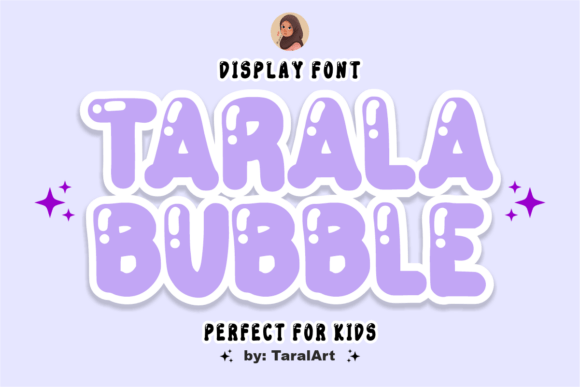
Tarala Bubble: A Squishy, Joyful Display Font
In the crowded landscape of digital design, capturing attention often requires more than just clear communication; it demands an emotional connection. Typography plays a pivotal role in establishing this tone before a single word is read. Enter Tarala Bubble, a typeface that immediately distinguishes itself through its ultra-chunky and utterly squishy aesthetic. Unlike traditional serif or sans-serif fonts that prioritize neutrality, Tarala Bubble brings immediate joy to any text. Its maximized rounded forms and incredibly soft, bubble-like appearance embody pure fun and cuteness, making it a powerful tool for designers who need to inject warmth and approachability into their projects.
The Psychology of Soft, Rounded Typography
When selecting a font, the shape of the letters influences how the audience perceives the message. Sharp angles can convey authority, urgency, or modernity, but they can also feel harsh or intimidating. In contrast, the gentle curves found in Tarala Bubble trigger a different psychological response. The human eye is naturally drawn to organic, rounded shapes because they mimic elements found in nature and the physical world, such as bubbles, clouds, and soft toys. This "liquid-like" aesthetic creates a sense of safety and playfulness.
For professionals targeting younger audiences or those looking to soften a brand's image, this visual language is essential. The gentle glow and light purple color often seen in previews enhance this playful vibe, though the core strength of the font lies in its structure. By removing sharp corners and maximizing the volume of each character, Tarala Bubble ensures that the text feels friendly and inviting. This is not merely about decoration; it is about reducing cognitive friction. When a headline looks like it is smiling back at the reader, engagement rates often improve because the barrier to entry feels lower.
Ideal Applications for Children and Education
The most obvious and effective use case for Tarala Bubble is in children's media. Educators, parents, and content creators know that readability for young learners goes beyond simple letter recognition; it involves maintaining interest. Standard fonts can sometimes feel dry or academic, causing disengagement. Tarala Bubble solves this by transforming educational materials into something visually exciting. Whether used for flashcards, storybook titles, or classroom posters, the font's bold, simple shapes ensure excellent legibility while keeping the mood lighthearted.
Beyond education, the toy industry relies heavily on packaging that screams "fun." A product box featuring a standard font might blend in with competitors, but one utilizing the buoyant energy of Tarala Bubble stands out on the shelf. The chunky nature of the letters mimics the tactile experience of the toys themselves—plush, soft, and safe. This alignment between the visual presentation and the physical product strengthens the consumer's desire to interact with the item. For small business owners selling crafts or handmade goods for kids, adopting this typeface can instantly signal that the brand understands its demographic.
Enhancing Digital Presence with Playful Branding
While explicitly advertised as perfect for kids, the utility of Tarala Bubble extends well into adult-centric digital spaces where playfulness is a strategic asset. Social media platforms are saturated with serious, corporate imagery. To break through this noise, brands often adopt a more human, relatable voice. Using Tarala Bubble for vibrant social media posts, animated titles, or sticker designs allows marketers to communicate with a sense of humor and approachability.
Consider a lifestyle blogger or a freelance creative launching a new workshop series. A stern, minimalist font might suggest rigidity, whereas Tarala Bubble suggests creativity and open-mindedness. It invites the viewer to participate rather than just observe. The font works exceptionally well for headlines that need to be big, friendly, and impossible to ignore. Because the characters are so distinct and thick, they maintain their impact even when scaled down for mobile screens or used in complex graphic compositions.
Practical Benefits for Designers and Marketers
From a practical standpoint, using a display font like Tarala Bubble can streamline the design process for specific projects. Instead of spending hours manipulating standard fonts to make them look rounder or softer, this typeface provides the desired effect out of the box. This efficiency allows creatives to focus on layout, color theory, and messaging rather than basic typographic adjustments. The bold shapes provide a strong foundation for layering effects, shadows, or gradients without losing structural integrity.
- Visual Impact: The sheer size and weight of the letters command attention, making them ideal for hero sections on websites or main thumbnails for video content.
- Emotional Resonance: It conveys a specific mood—childlike wonder and adorable energy—that aligns perfectly with campaigns focused on family, leisure, or self-care.
- Versatility in Color: While the preview features a light purple hue, the solid shapes of the font allow it to be rendered in any color palette while retaining its characteristic softness.
Navigating Limitations and Strategic Fit
Despite its many strengths, it is crucial to recognize where Tarala Bubble may not be the right fit. As a display font, it is designed for headlines, short phrases, and decorative elements. It is not intended for long-form body copy. The exaggerated curves and tight spacing that make it charming in a title can become difficult to read in paragraphs of dense text. Attempting to use it for articles, reports, or legal disclaimers would compromise legibility and undermine the professional credibility of the document.
Furthermore, context is key. While the font excels in lighthearted designs, it may clash with industries that require strict formality, such as law, finance, or medical reporting. In these scenarios, the "squishy" aesthetic could be misinterpreted as unprofessional or lacking seriousness. Designers should compare options carefully if the project straddles the line between playful and authoritative. In such hybrid cases, pairing Tarala Bubble with a clean, neutral sans-serif for body text can create a balanced hierarchy that leverages the font's charm without sacrificing clarity.
Recommendations for Implementation
To get the most out of this typeface, consider using it sparingly but strategically. Let it do the heavy lifting for your primary call-to-action or main headline, then support it with simpler typography. When designing for print, ensure that the ink coverage is managed correctly, as the large, solid areas of the letters may require adjustments in printing settings to prevent smudging. For digital applications, the font's robust shapes hold up well against various background textures, making it a reliable choice for busy, colorful layouts.
Ultimately, Tarala Bubble is more than just a collection of letters; it is a tool for emotional storytelling. By choosing a font that embodies fun and cuteness, you are signaling to your audience that your content is safe, enjoyable, and accessible. Whether you are creating educational resources, packaging a new toy, or crafting a vibrant social media campaign, this font offers a unique way to make your words pop. It simplifies the decision-making process for those seeking a big, friendly, and approachable headline, ensuring that your message is not just read, but felt.